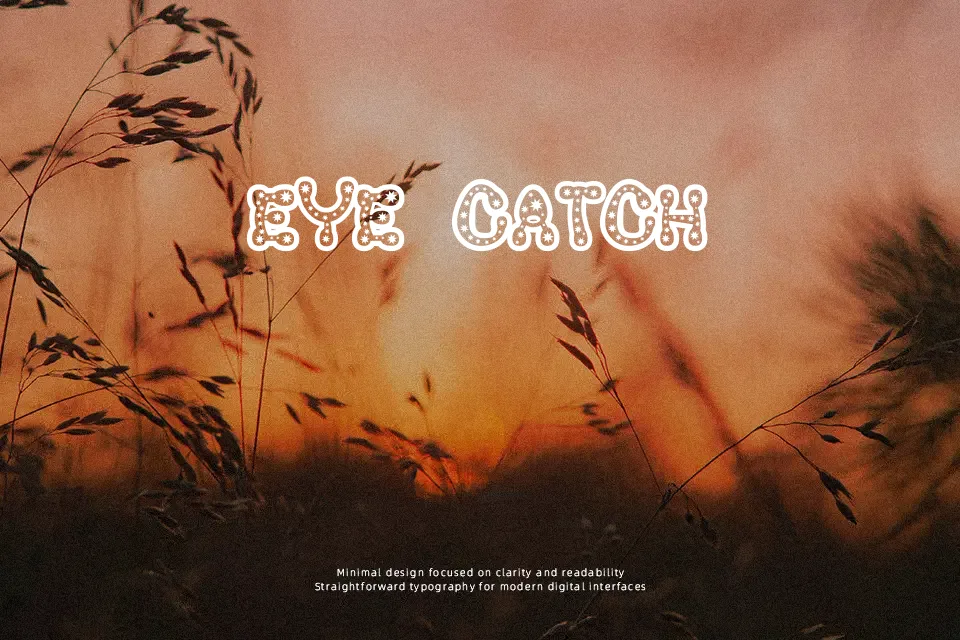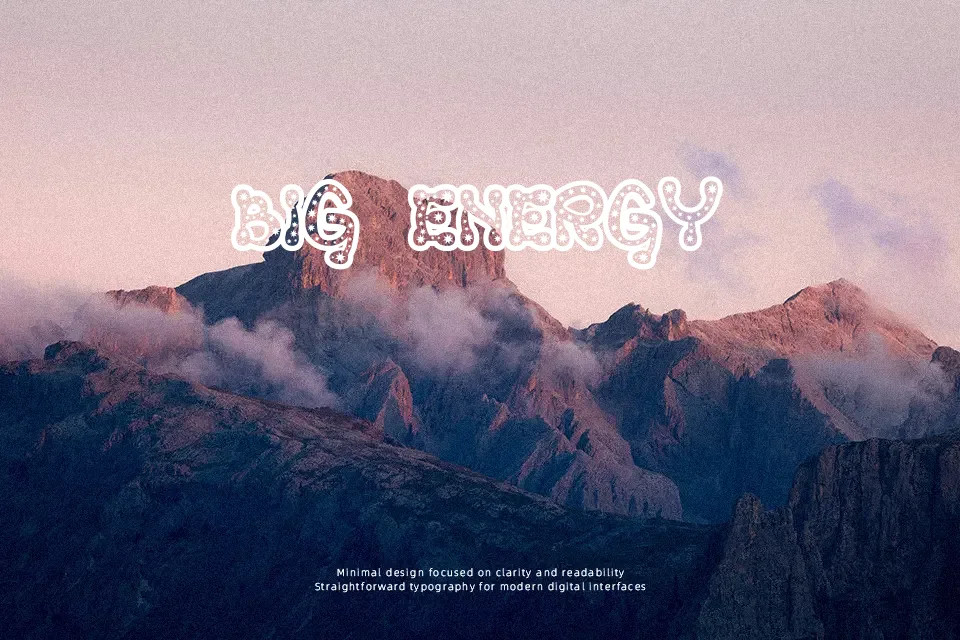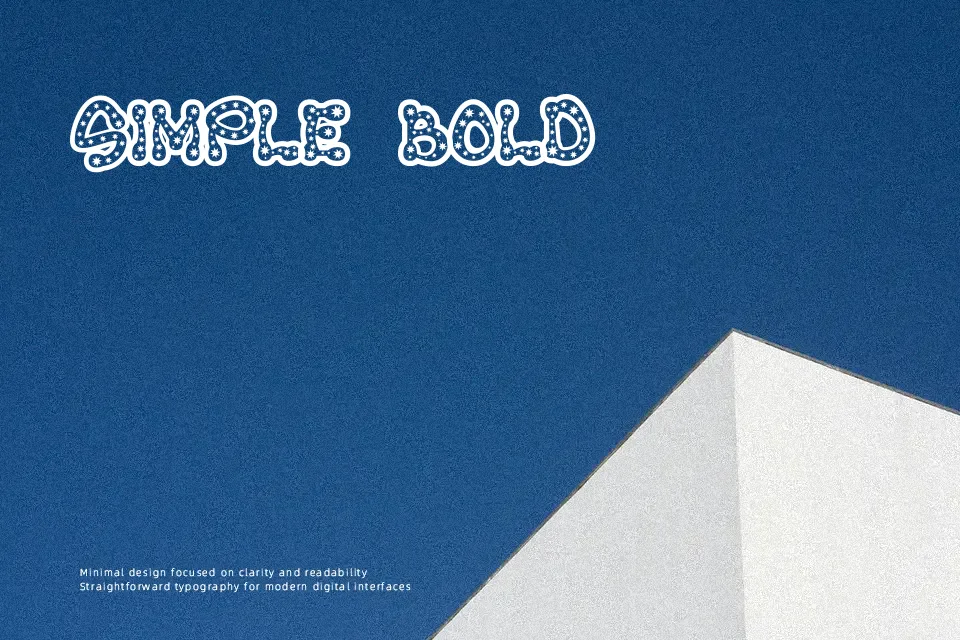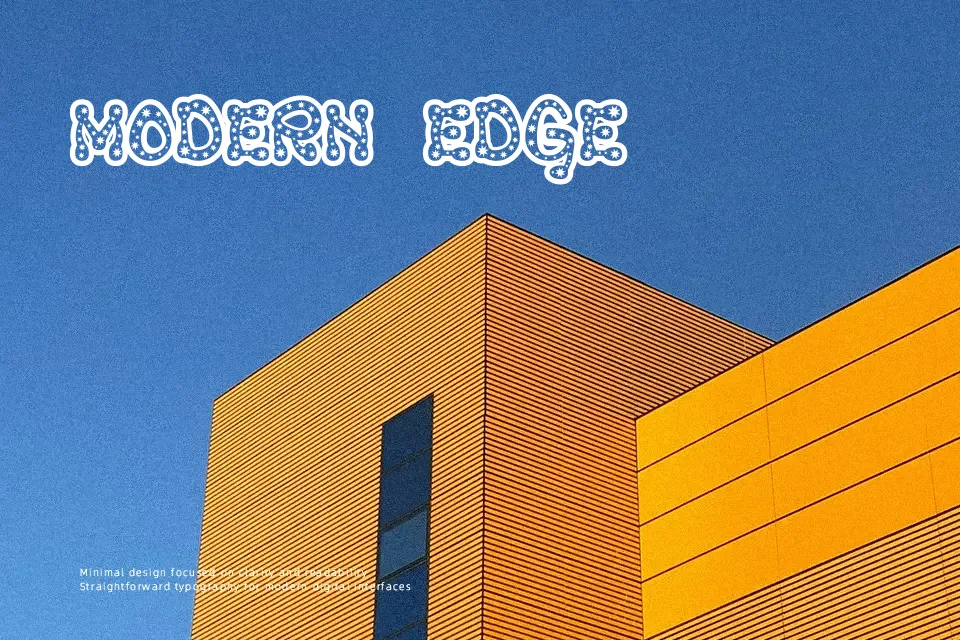
Rave Queen Font
Designed by Fontalicious
Visual rhythm takes center stage when working with the Rave Queen Font in bold, display-heavy layouts. The letterforms are characterized by their exaggerated, undulating strokes and tight spacing, creating a continuous, wavy texture that feels distinctly rooted in 1970s psychedelic art. Heavy curves and flared terminals maximize visual impact, though these highly decorative details reduce continuous reading comfort. The dense forms become difficult to decipher at smaller scales, meaning the typeface performs best when displayed at larger sizes where its unique character shapes can truly breathe. It provides an energetic, retro atmosphere perfectly suited for vinyl record packaging, nightclub event flyers, and nostalgic fashion branding.
vinyl record packaging, nightclub event flyers, nostalgic fashion branding
long paragraph text, small interface labels, dense editorial layouts
Perfect for branding, fashion, and music, with a bold and decorative style.